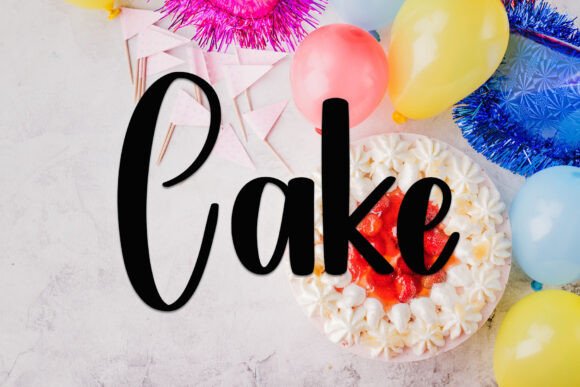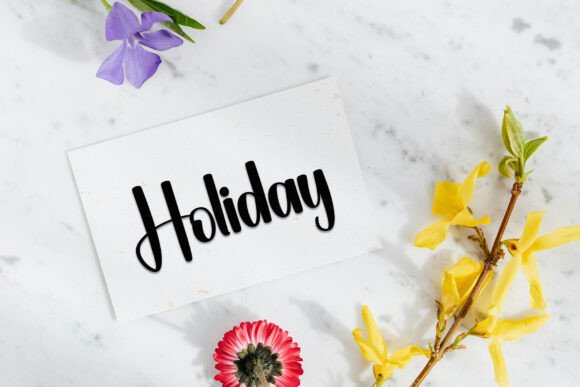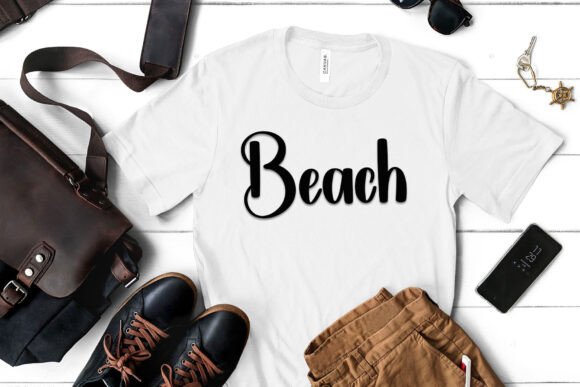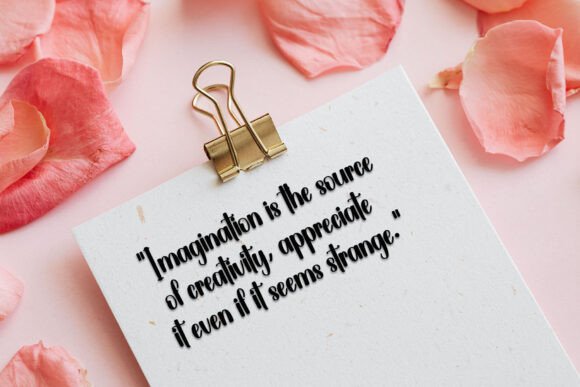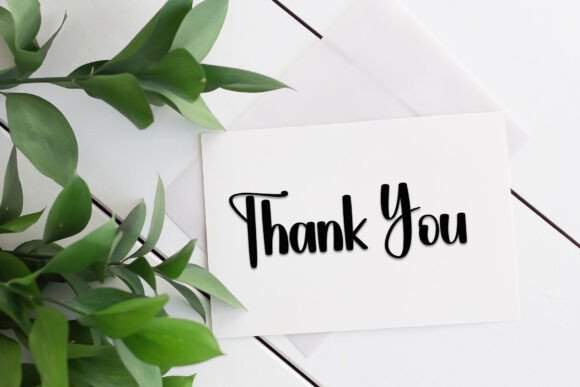
Easter Font: The Sweet and Friendly Handwritten Font for Your Creative Projects
Easter is just around the corner, and with it comes the opportunity to create beautiful and festive designs that capture the spirit of the season. If you’re a designer or crafter looking for the perfect font to add a touch of sweetness and friendliness to your projects, look no further than the Easter Font. This gorgeous handwritten font is perfect for a wide range of designs, from Easter-themed crafts to everyday creative projects.
What is Easter Font?
Easter Font is a sweet and friendly handwritten font that is sure to delight. Its natural and unique style makes it incredibly fitting to a large pool of designs, and the only limit is your imagination! With its whimsical and playful feel, this font is perfect for designers and crafters who want to add a personal touch to their projects.
Characteristics of Easter Font
So, what makes Easter Font so special? Here are just a few of its key characteristics:
- Handwritten style: Easter Font is a handwritten font, which gives it a personal and unique feel.
- Sweet and friendly: The font has a sweet and friendly vibe that’s perfect for Easter-themed designs and other creative projects.
- Natural and unique style: Easter Font has a natural and unique style that makes it incredibly versatile.
- Whimsical and playful: The font has a whimsical and playful feel that’s sure to delight.
Uses for Easter Font
So, what can you use Easter Font for? The possibilities are endless! Here are just a few ideas to get you started:
- Easter-themed crafts: Easter Font is perfect for Easter-themed crafts, such as Easter egg decorations, Easter card making, and Easter scrapbooking.
- Party invitations: Use Easter Font to create adorable party invitations for Easter celebrations, birthday parties, and other special events.
- Social media graphics: Add a touch of sweetness and friendliness to your social media graphics with Easter Font.
- Blog and website design: Use Easter Font to add a personal touch to your blog or website.
- Digital art: Easter Font is perfect for digital art projects, such as illustrations, graphics, and mixed media art.
Tips for Using Easter Font
Here are a few tips for using Easter Font in your creative projects:
- Experiment with different colors: Easter Font looks great in a variety of colors, so don’t be afraid to experiment and find the perfect hue for your project.
- Mix and match with other fonts: Easter Font pairs well with other fonts, so try mixing and matching it with different fonts to create a unique look.
- Use it for headings and titles: Easter Font is perfect for headings and titles, as it adds a touch of sweetness and friendliness to your design.
- Add embellishments: Consider adding embellishments, such as flowers or Easter eggs, to your design to make it more festive.